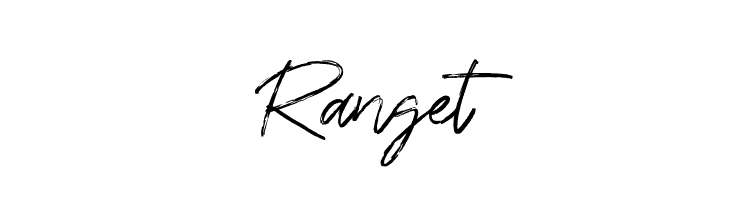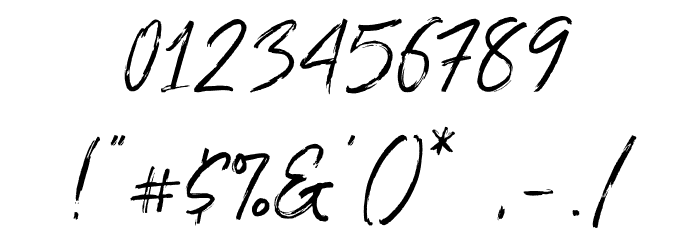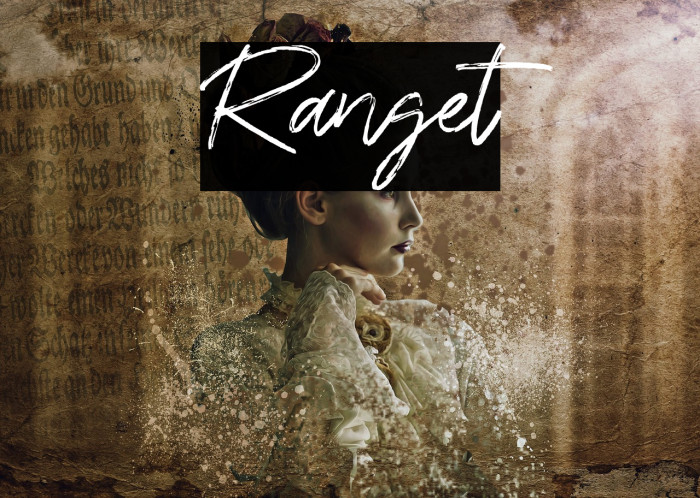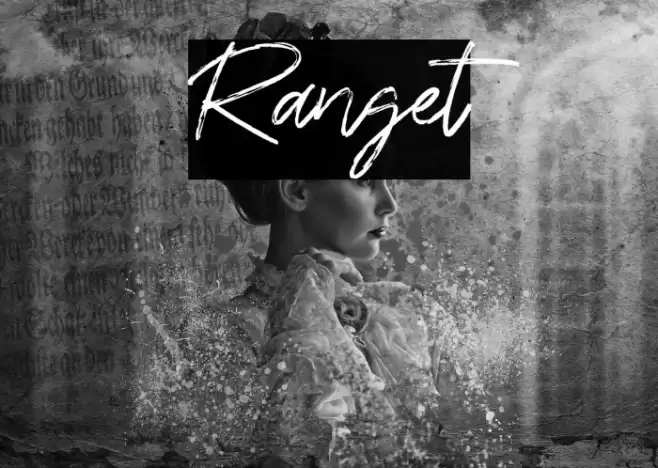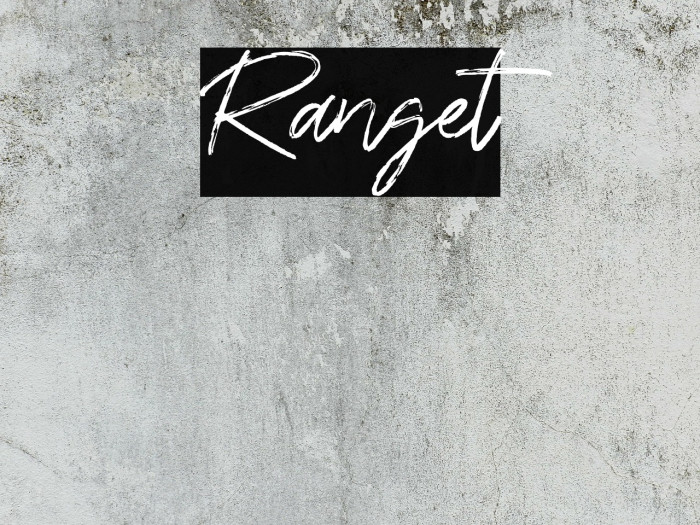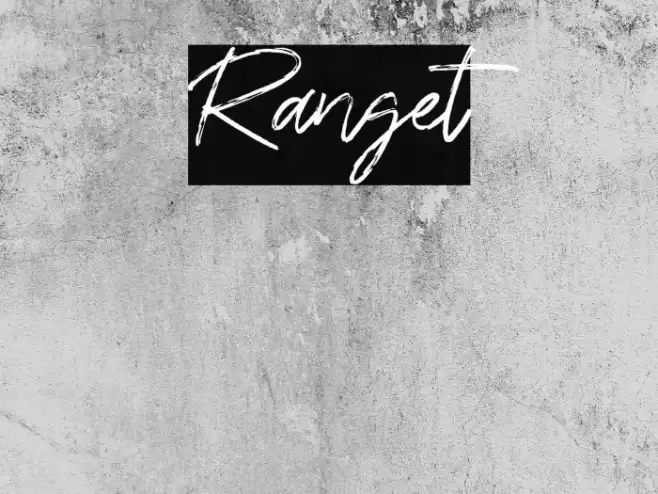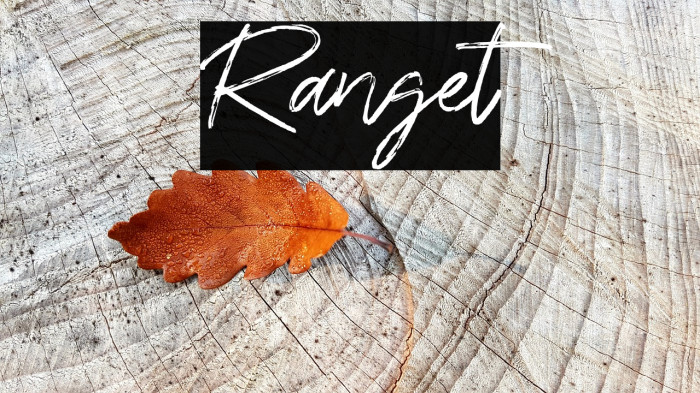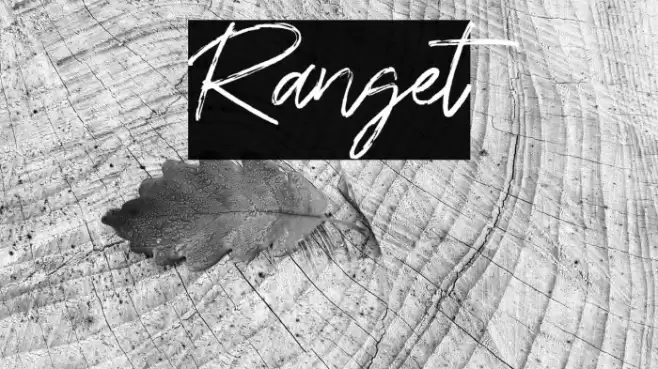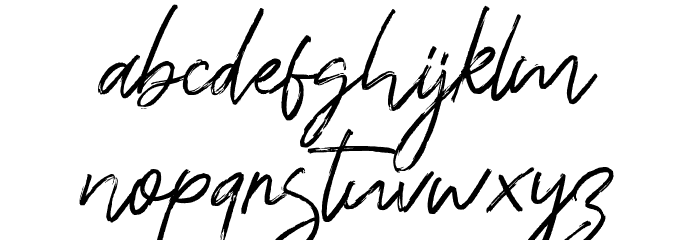
Ranget Font
Ranget Description
This font exudes a dynamic and energetic feel with its handwritten style, characterized by fluid, sweeping strokes and a slightly rough texture. The letters are connected in a cursive manner, giving it a natural and personal touch. The uppercase letters maintain a consistent height, while the lowercase letters exhibit a playful variation in size and slant. Numbers and special characters follow the same lively and informal style, making the font versatile for creative projects. The overall appearance is both artistic and approachable, ideal for adding a personal touch to any design.
| Use Case | Logos, Headlines, Creative projects |
| Proposed Projects | Ideal for greeting cards, invitations, personal branding, and creative posters. |